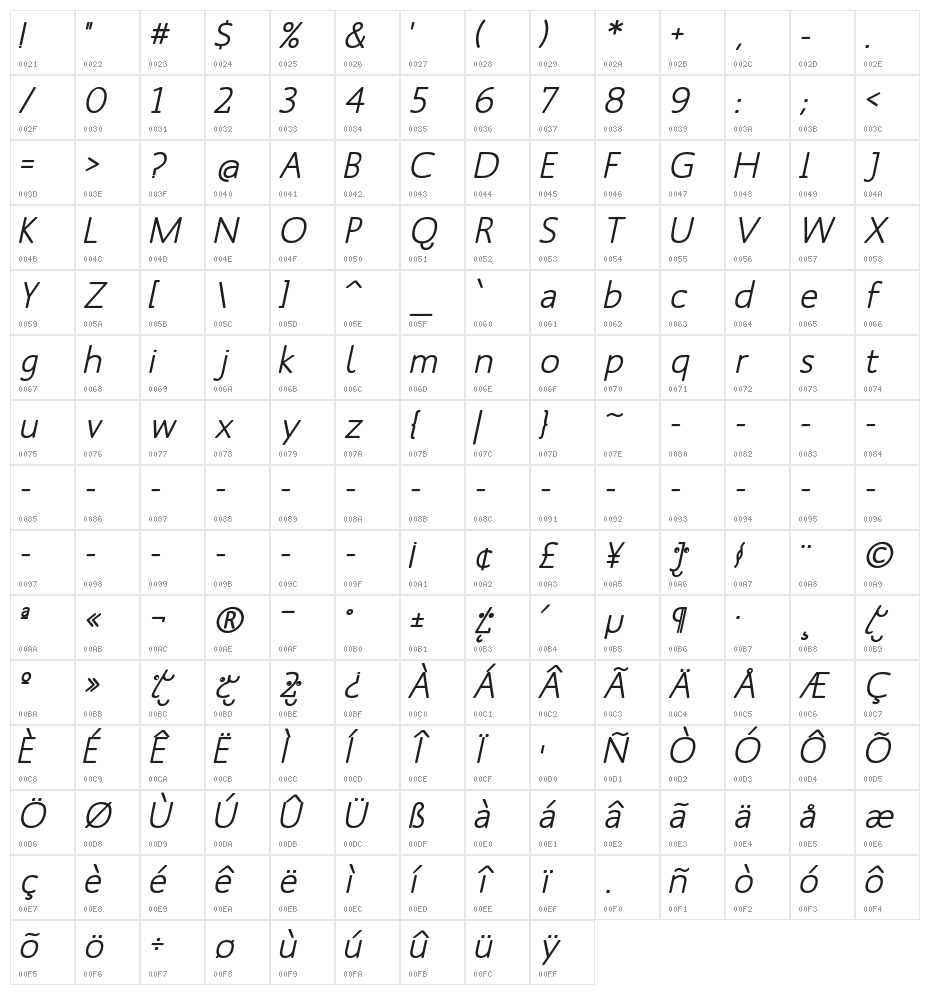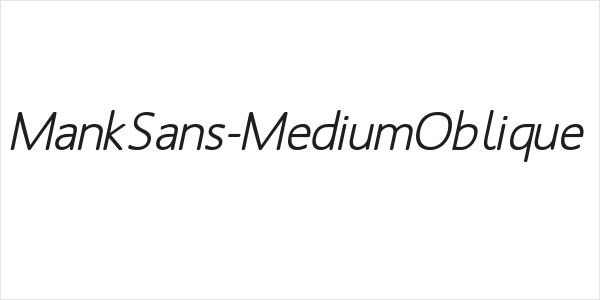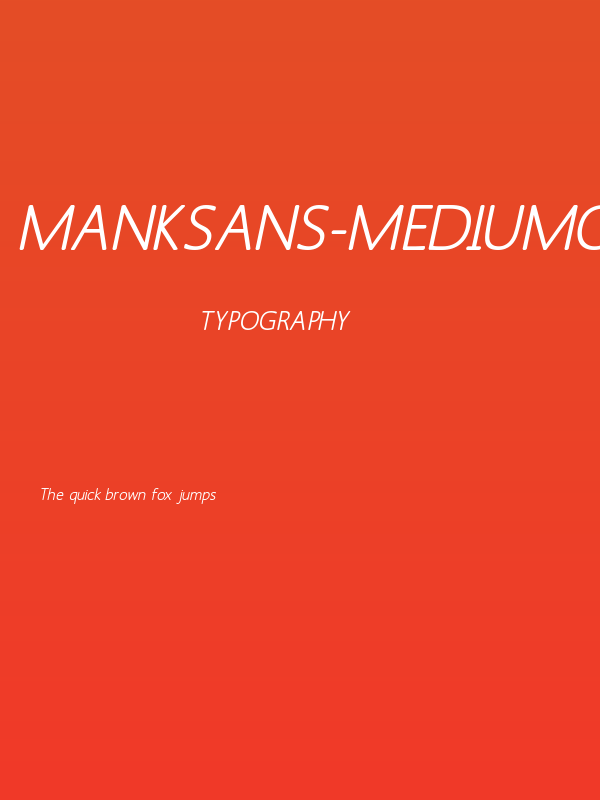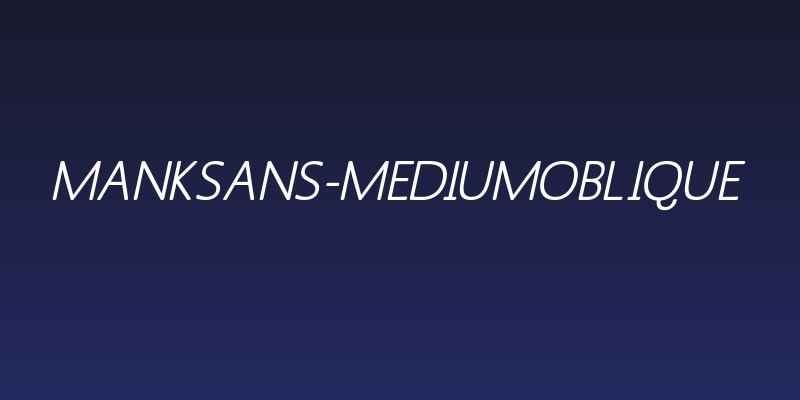
MankSans-MediumOblique Font
MankSans-MediumOblique Description
This font exhibits a clean and modern sans-serif style with a subtle oblique slant, giving it a dynamic and forward-moving appearance. The characters are well-proportioned, with a consistent stroke width that maintains readability across various sizes. The design is sleek and minimalistic, making it suitable for contemporary applications. The uppercase and lowercase letters are distinct, with smooth curves and a slight inclination that adds a touch of elegance. The numerals are clear and straightforward, ensuring they stand out in any context. Special characters are well-integrated, maintaining the overall aesthetic of the font.
Proposed ProjectsIdeal for branding, advertising, digital interfaces, and editorial design where a modern and professional look is desired.